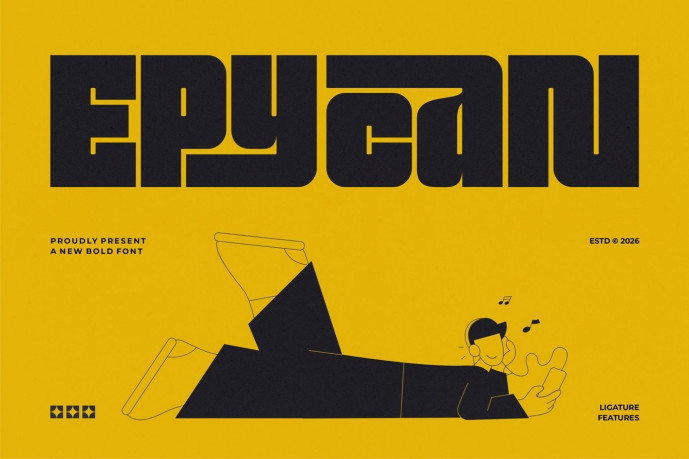
Epycan Bold Display Font
Designer: Ermedia Studio
Epycan Bold Font is a thick and powerful display font crafted to create eye-catching and impactful designs. With its chunky letterforms, bold curves, and playful personality, Epycan is perfect for posters, branding, packaging, headlines, social media graphics, editorial layouts, and any project that needs a strong visual presence.
Designed with a modern and fun aesthetic, this font delivers excellent readability while maintaining a bold and energetic style. Whether for print or digital use, Epycan helps your designs stand out with confidence and character.
Ligature
Uppercase and lowercase
Numbering and Punctuation